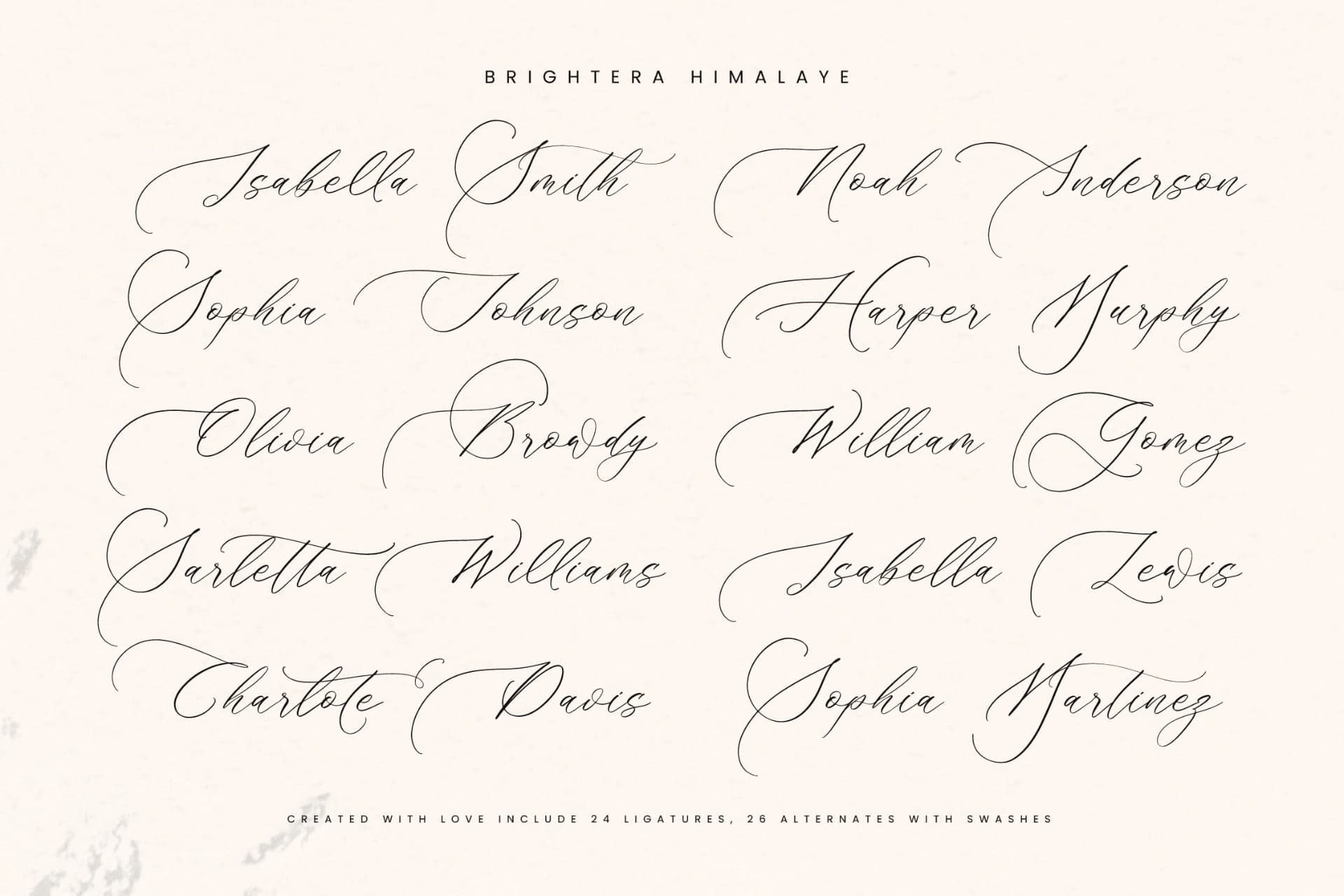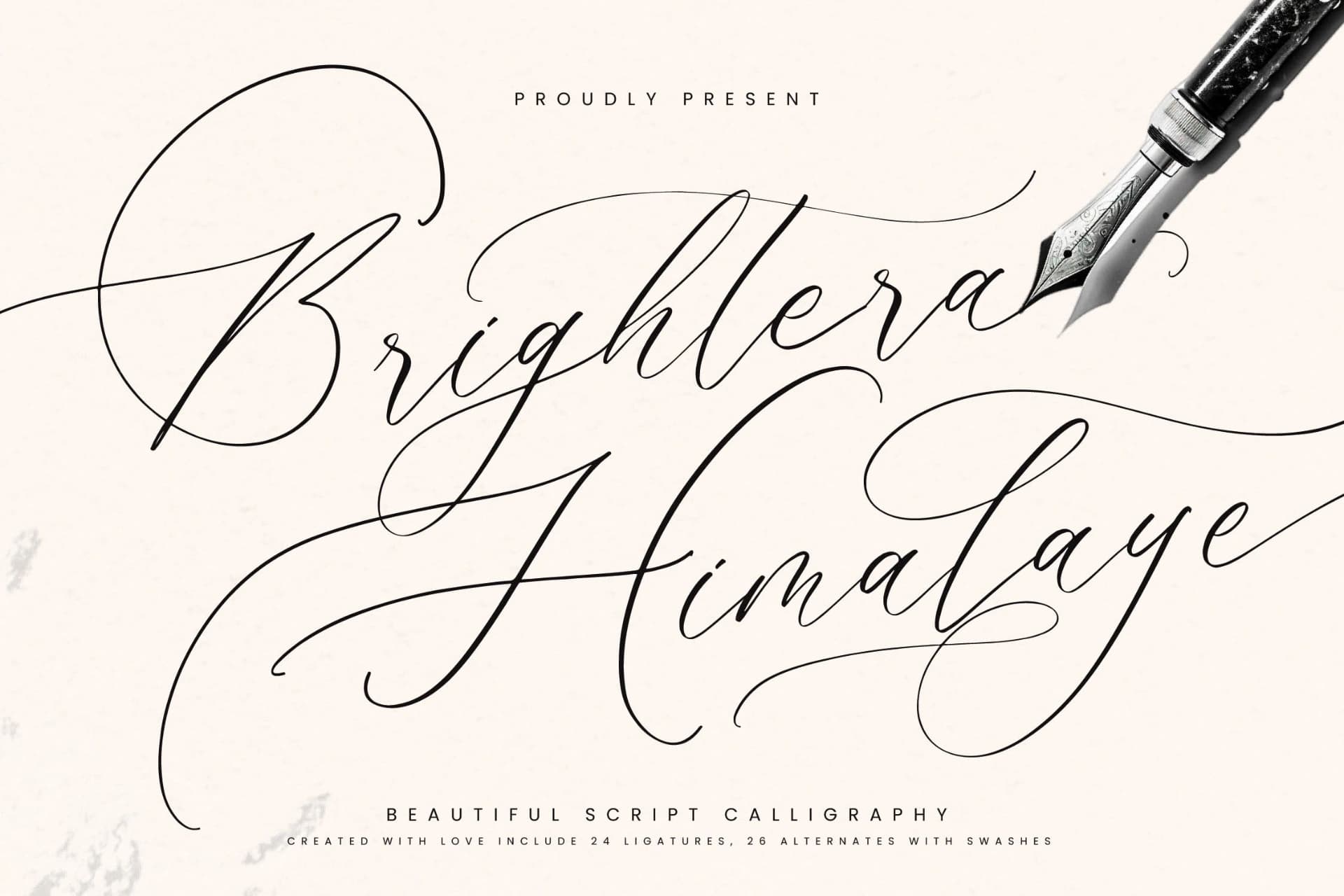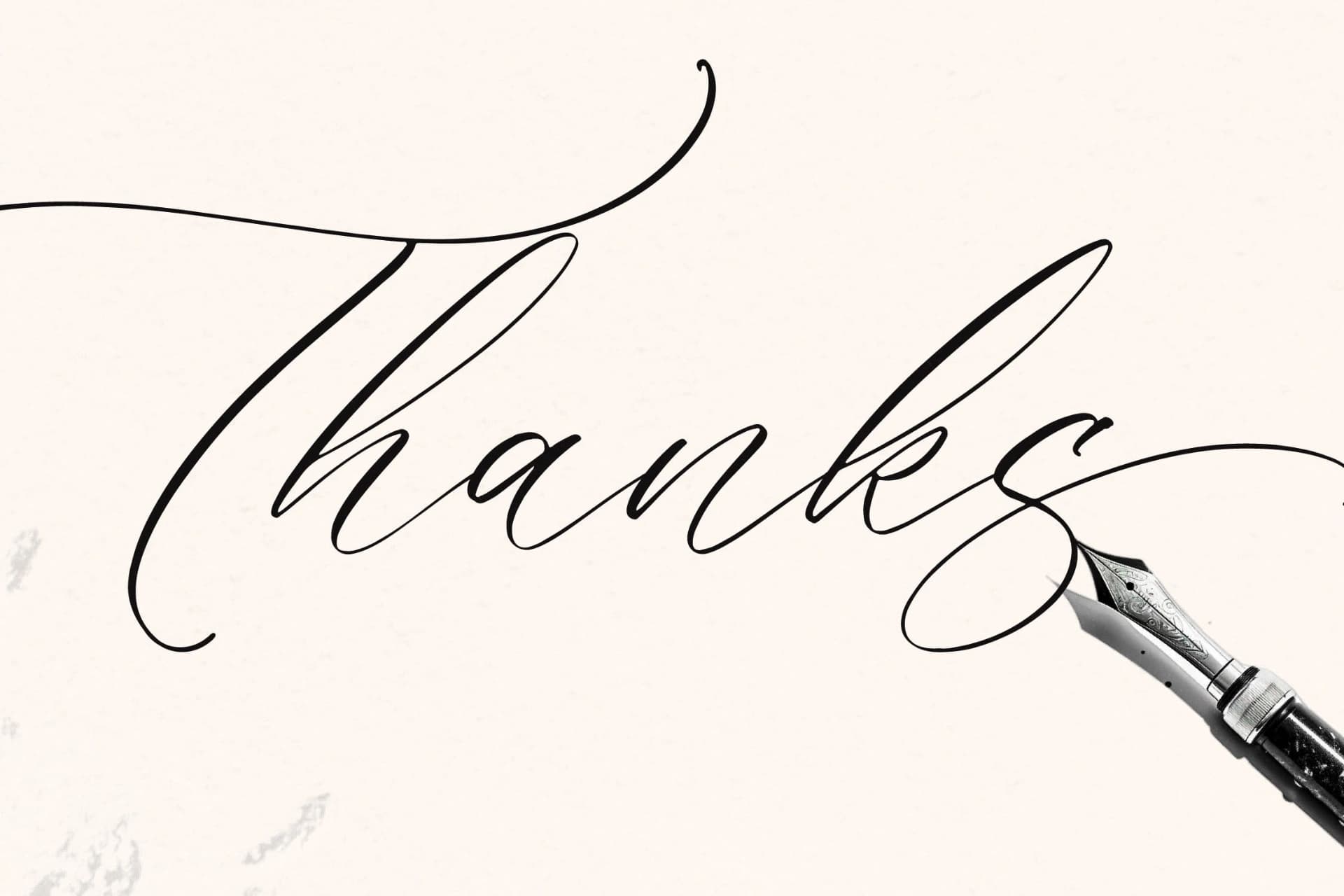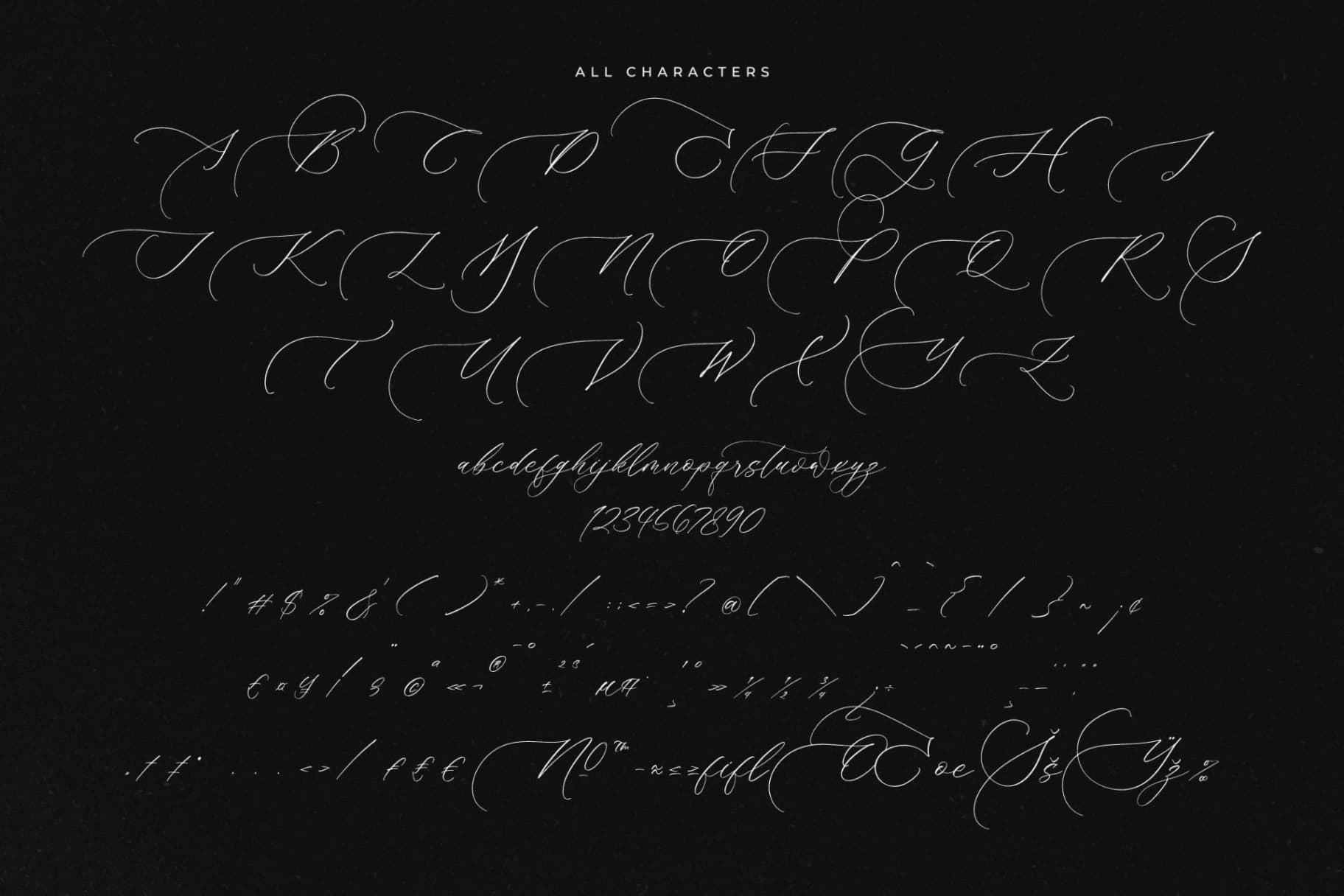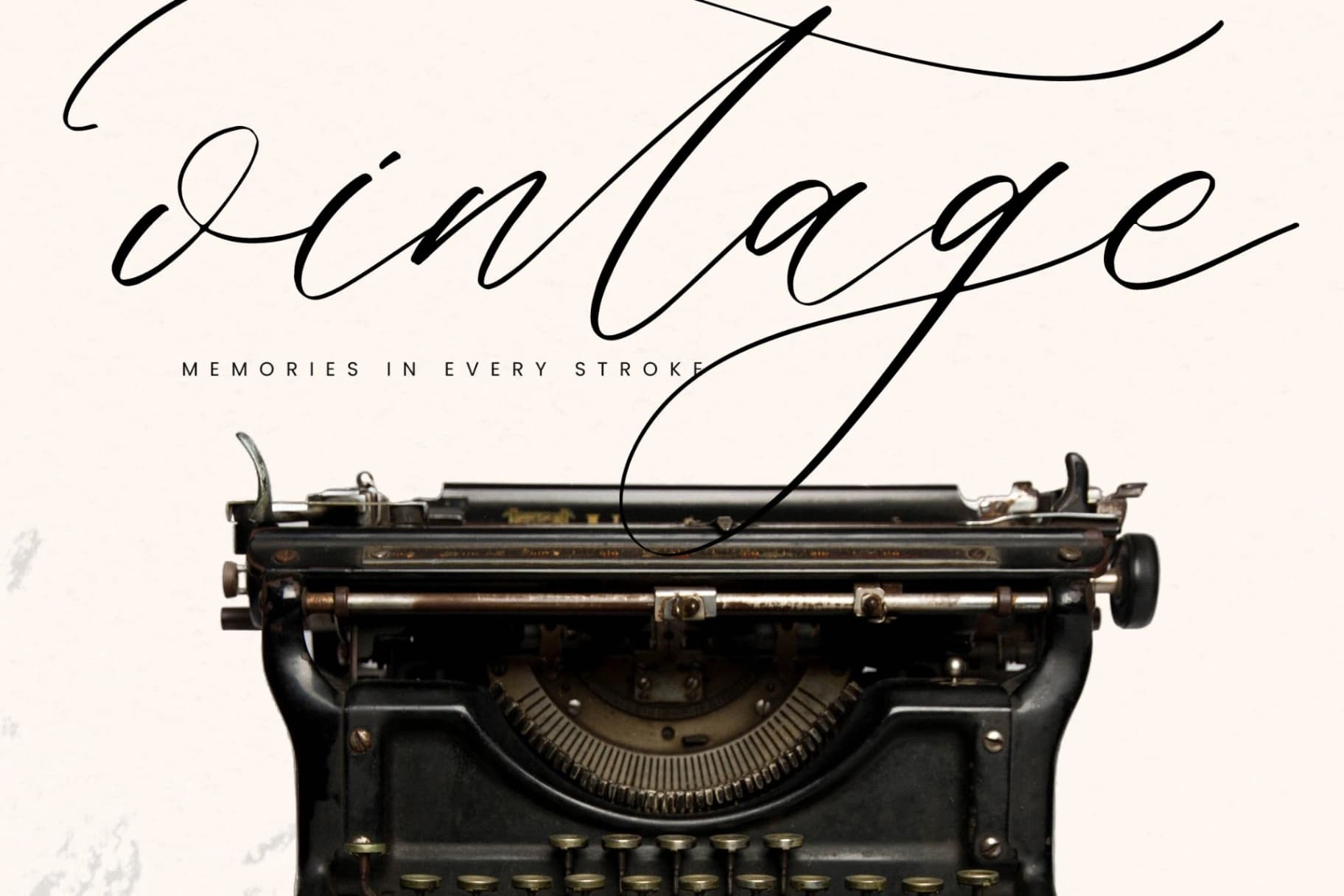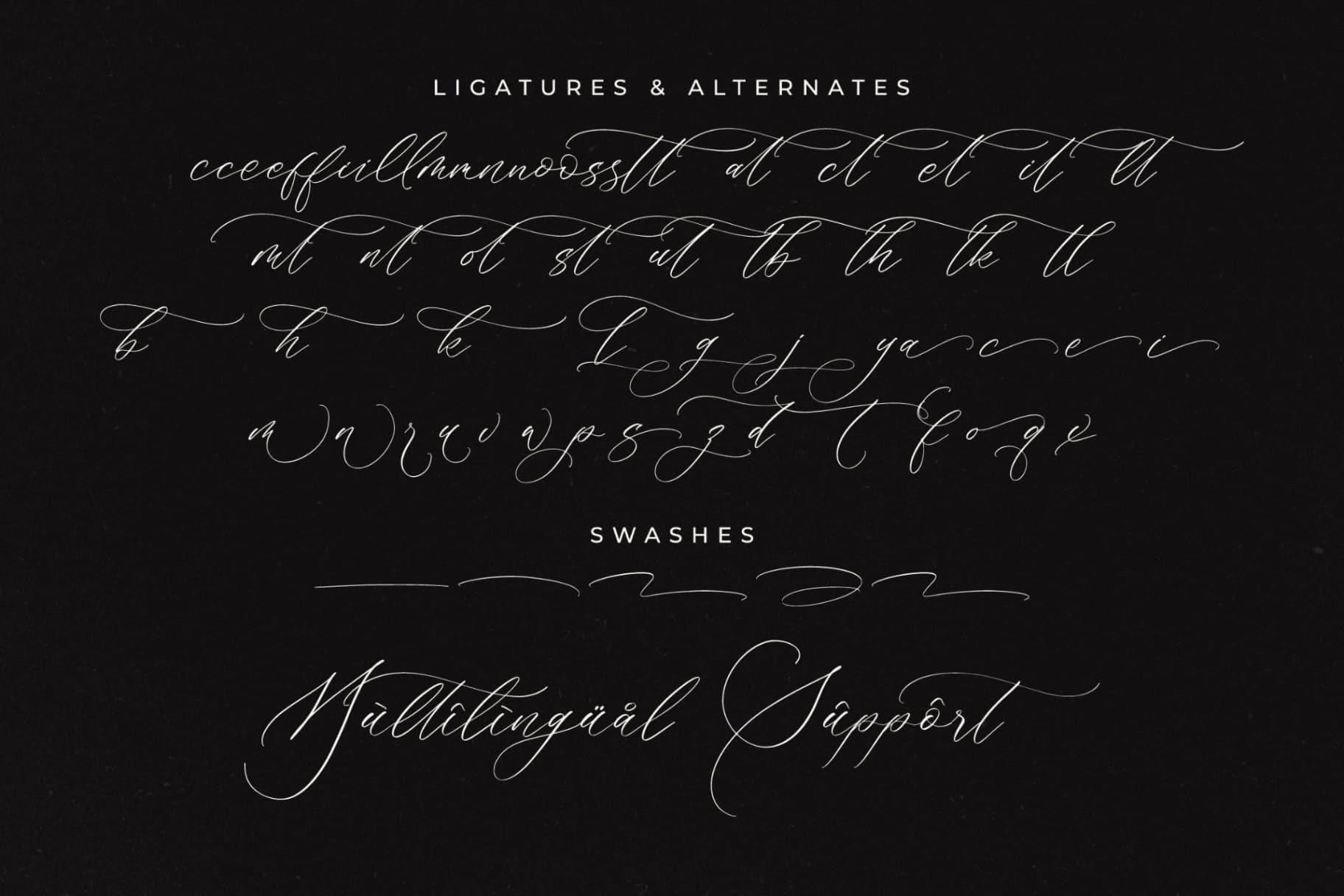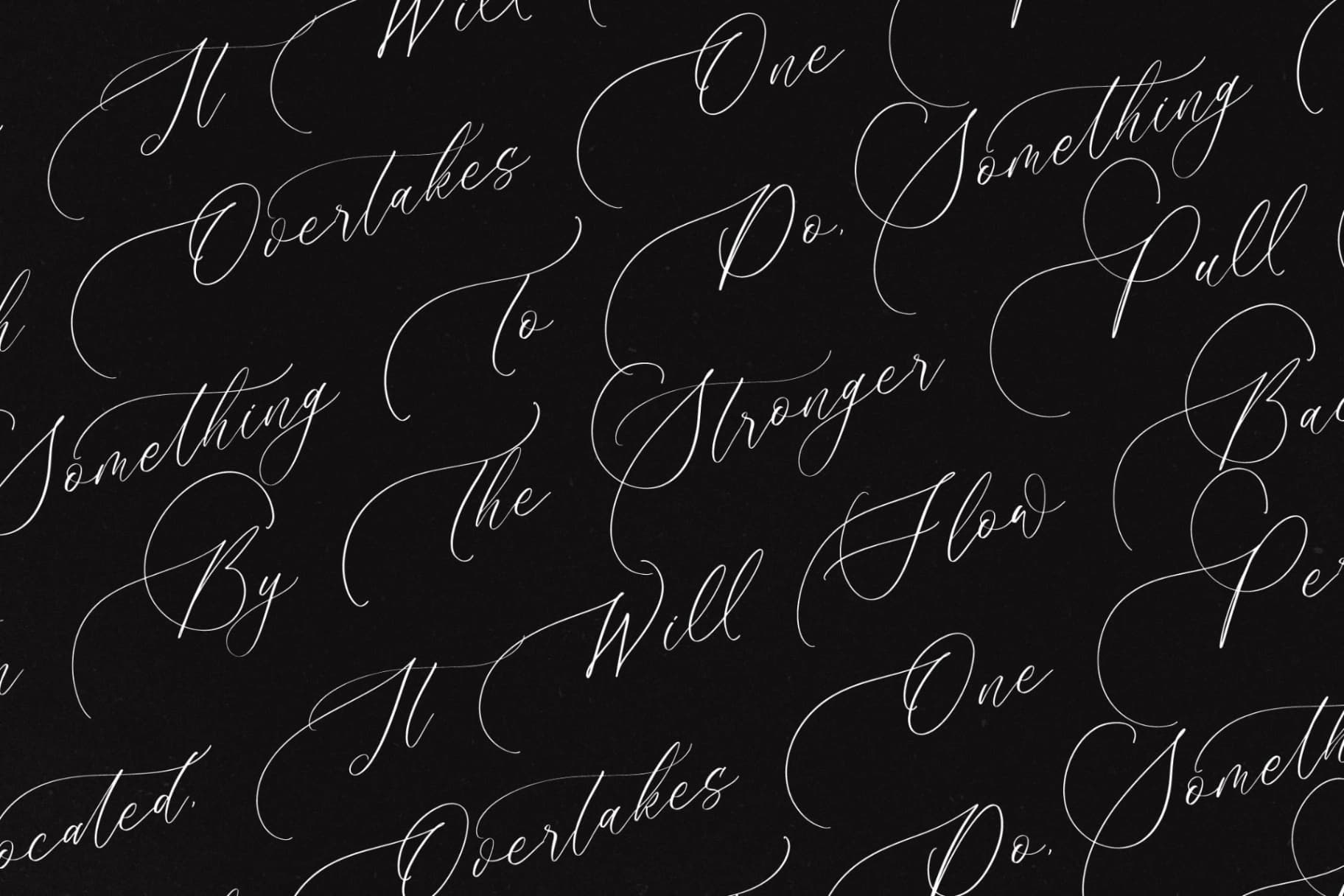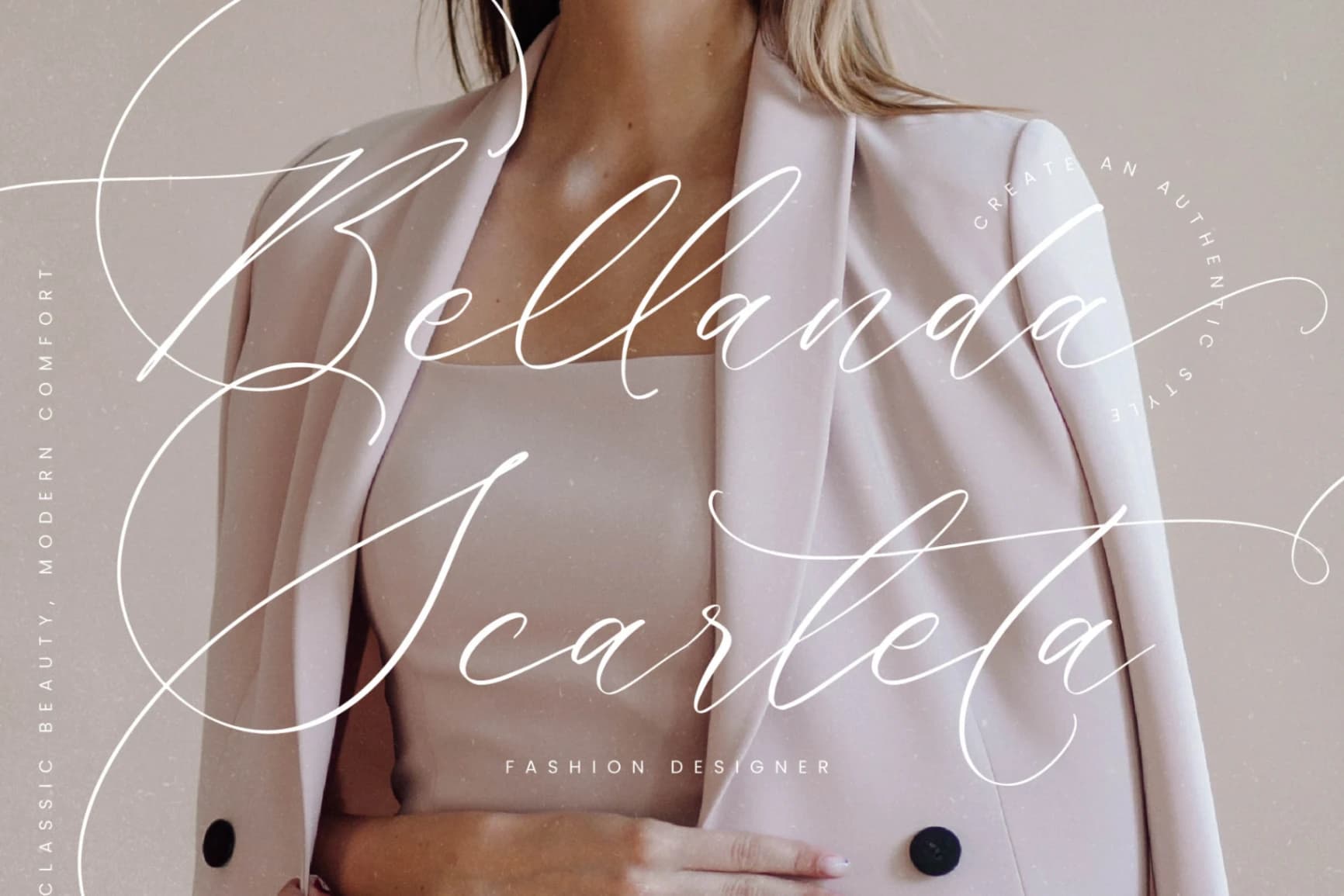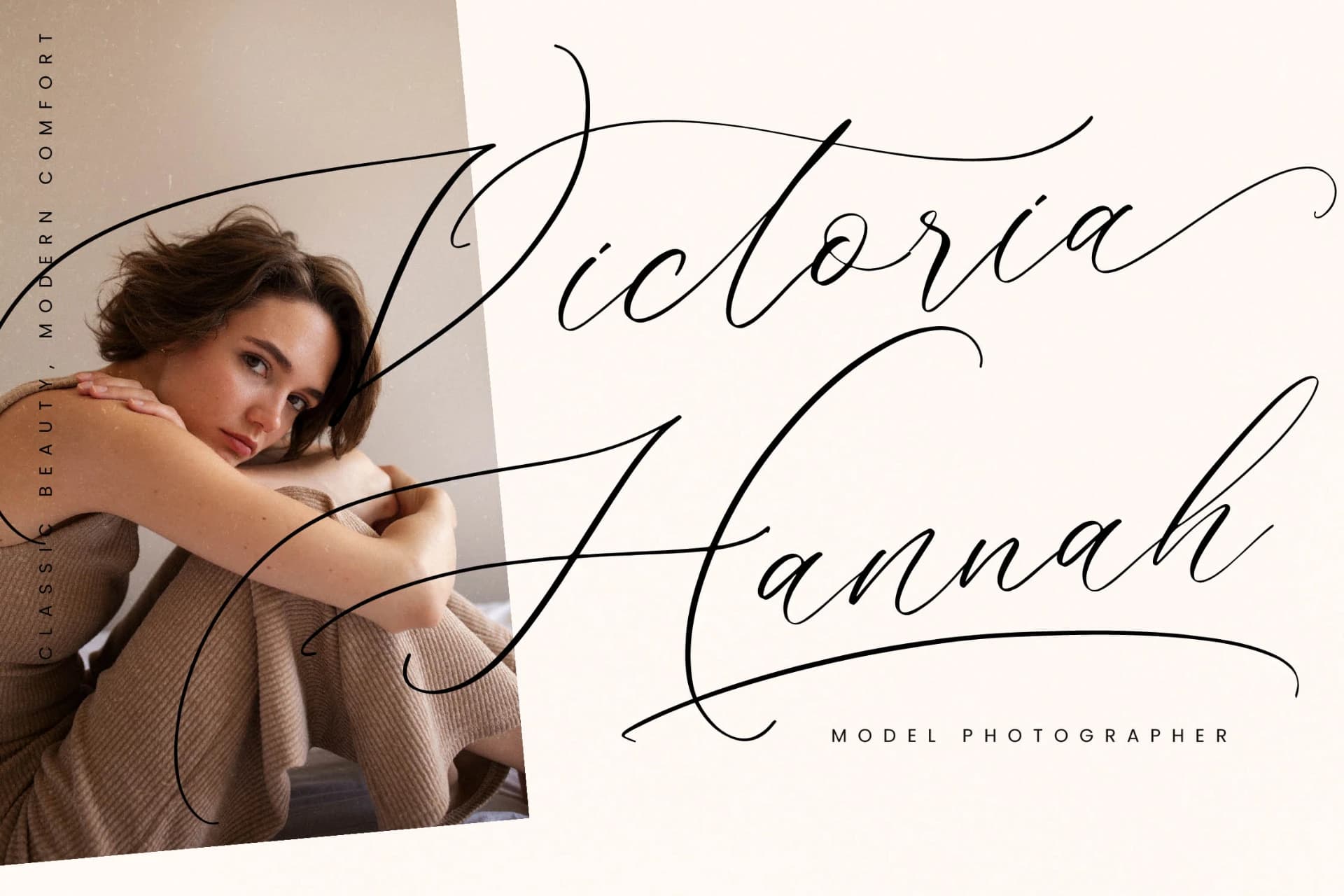
Brightera Himalaye – Beautiful Script Calligraphy
Elevate your design projects with the undeniable grace of Brightera Himalaye – Beautiful Script Calligraphy. This exceptional typeface embodies modern elegance, capturing the authenticity of genuine, hand-penned artistry. Characterized by its dramatic, high-contrast strokes—ranging from hairline thin connections to substantial downstrokes—it delivers immediate visual impact and an unmistakable sense of luxury. The flowing, smooth rhythm ensures exceptional readability despite its ornate styling, making it perfect for headlines demanding attention and editorial sophistication.
Achieve global consistency without compromising style. Brightera Himalaye – Beautiful Script Calligraphy is engineered for maximum operational flexibility. With its extensive multilingual support, Brightera Himalaye – Beautiful Script Calligraphy adapts seamlessly across global markets, making it incredibly versatile for international projects. This robust linguistic foundation ensures that your luxurious messaging resonates clearly and professionally, regardless of the target language or location, offering a truly borderless design solution for global communication.
Unlock unparalleled customization through a rich suite of OpenType features. Included within Brightera Himalaye – Beautiful Script Calligraphy are dozens of specialized alternates, including complex ligatures and beautifully sweeping swashes that transform standard text into bespoke visual signatures. These assets provide the typographic depth required by high-calibre designers, allowing for truly organic and unique word formations that look distinctly hand-drawn and meticulously crafted for maximum visual flair and typographic luxury.
Define your premium brand identity immediately. Brightera Himalaye – Beautiful Script Calligraphy is perfectly suited for luxury branding, exclusive wedding invitations, sophisticated product packaging, high-end spirit labels, and magazine mastheads. Its delicate yet powerful presence conveys trust and prestige, making it the definitive choice for projects where quality and exclusivity are paramount. Invest in this definitive script to ensure your brand communication maintains a timeless, upper-class aesthetic.